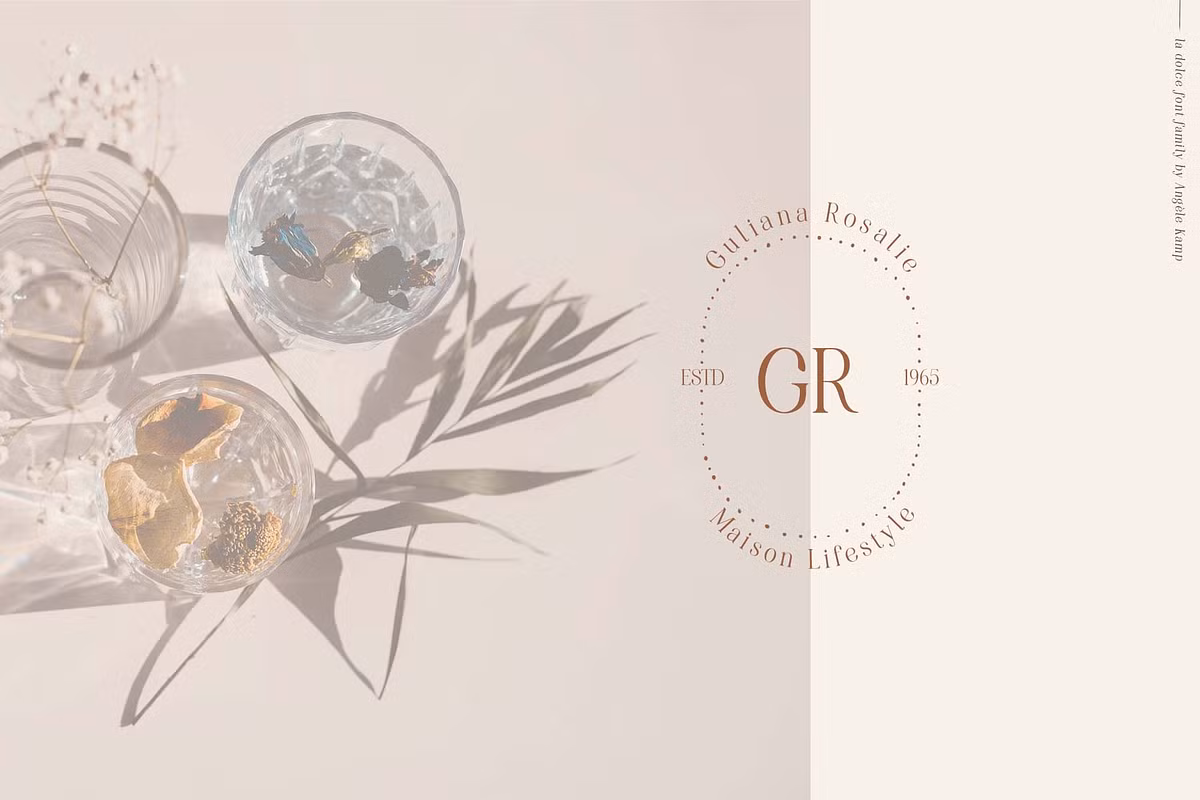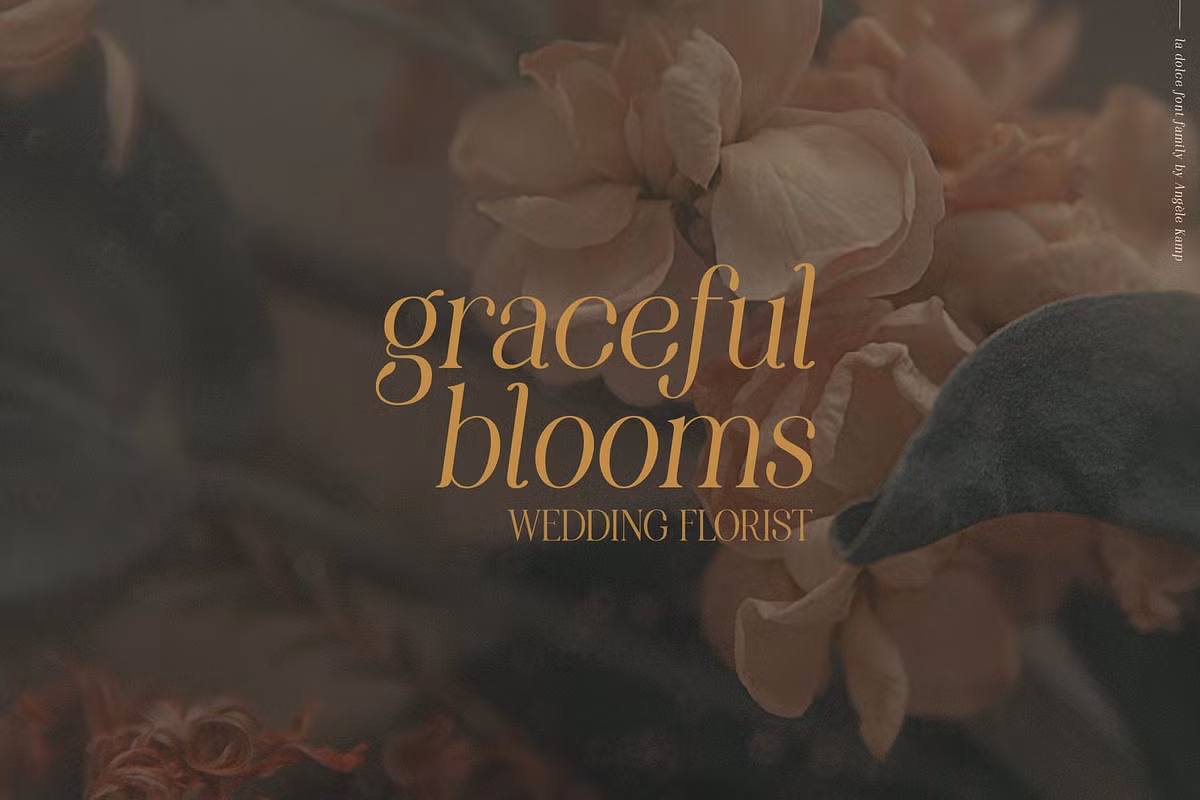
La Dolce: Elegant Serif Font Family for Timeless Design Projects
Modern serif font family La Dolce
La Dolce: Elegant Serif Font Family for Timeless Design Projects
Introduction to La Dolce
La Dolce is a beautiful serif font that adds a touch of class and femininity to your designs. It’s perfect for lots of different projects, like logos, wedding invitations, or commercial work, and it gives your work a timeless feel that’s both elegant and stylish. With La Dolce, you can create something that will really impress your clients and make your designs stand out.
The font is versatile and sophisticated, making it a great choice for anyone looking to add a bit of luxury to their work. Whether you’re working on a personal project or something for a client, La Dolce is a great option to consider. It’s a stunning collection that will elevate your designs and give them a high-end feel.
Example of La Dolce font in use
An example showcasing La Dolce’s elegant style.
Design Style of La Dolce
The design of La Dolce embodies a harmonious blend of luxury, modernity, and class. The font family features a delicate serif style that adds a refined touch to any text. Its graceful letterforms are perfect for those who appreciate high fashion and timeless design.
• Feminine Aesthetic: The gentle curves and elegant serifs of La Dolce give it a distinctly feminine style, making it an ideal choice for projects that seek to convey softness and elegance.
• Versatile Weight Options: With multiple weights including bold, regular, italic, and bold italic, La Dolce allows for flexibility in design. You can choose the weight that best fits your project’s needs, whether it’s for emphasis or subtlety.
La Dolce also includes some extra special touches – 9 hand-drawn shapes that go perfectly with the font. You can use these shapes to make your designs stand out and add a personal touch to things like business cards, logos, and other branding materials. They’re a great way to give your brand a unique feel and make it more memorable.
Hand-drawn shapes included with La Dolce font
Hand-drawn shapes complementing La Dolce font.
Character Sets and Font Features
La Dolce offers a rich character set, making it suitable for various languages and design needs. Each font file (OTF and WOFF formats) is crafted with precision to ensure that it maintains its beauty across different platforms and devices.
• Rich Character Set: La Dolce includes a comprehensive range of characters, including uppercase and lowercase letters, numbers, punctuation, and special characters, allowing you to express your ideas without limitations.
• Beautiful Ligatures: The font features exquisite ligatures that enhance the flow of text, making it visually appealing and easy to read. This is particularly useful for creating elegant headlines and logos.
• High-Quality Design: Developed with attention to detail, La Dolce displays excellent legibility and aesthetic appeal, making it a reliable choice for both print and digital media.
Use Cases for La Dolce
La Dolce is a versatile font family that can be used in a wide range of design projects. Here are some prominent use cases:
• Branding: Create memorable and stylish logos that reflect your brand’s identity. La Dolce’s elegant style makes it perfect for luxury brands, beauty products, and fashion lines.
• Wedding Designs: From invitations to save-the-date cards, La Dolce adds a touch of elegance to any wedding-related design. Its feminine flair complements floral motifs beautifully.
• Commercial Projects: Whether you’re designing brochures, business cards, or social media posts, La Dolce’s timeless design ensures your materials stand out and leave a lasting impression.
• Editorial Use: La Dolce works wonderfully in magazine layouts and editorial designs, where its sophisticated look can elevate headlines and body text alike.
La Dolce used in various design projects
La Dolce font applied in various design contexts.
Pairing Suggestions for La Dolce
Pairing fonts effectively can enhance your designs and create a cohesive visual identity. Here are some suggestions for pairing La Dolce:
When using La Dolce with sans serif fonts, consider pairing it with modern options like Montserrat or Lato. This combination works well because the elegant, classic feel of La Dolce’s serifs is balanced by the clean, simple lines of the sans serif fonts. The result is a look that feels both contemporary and visually appealing, with a nice contrast between the two styles. This balance is key to creating a design that looks fresh and modern, making it perfect for a wide range of applications.
With Script Fonts: Combine La Dolce with a delicate script font for a romantic feel. Fonts like Great Vibes or Pacifico can complement La Dolce beautifully, especially in wedding invitations or event stationery.
For a simpler look, try pairing La Dolce with a basic font like Arial or Helvetica. This combination lets La Dolce be the focus, while keeping the overall design clean and modern. It’s a great way to balance elegance with simplicity, making it perfect for designs where you want to make a statement without overwhelming the viewer.
What sets La Dolce apart is its versatility and timeless appeal, making it an excellent addition to any designer’s toolkit, whether you’re a professional or just starting out. By incorporating La Dolce into your design process, you’re investing in a high-quality font that will elevate your work and bring your creative ideas to life.